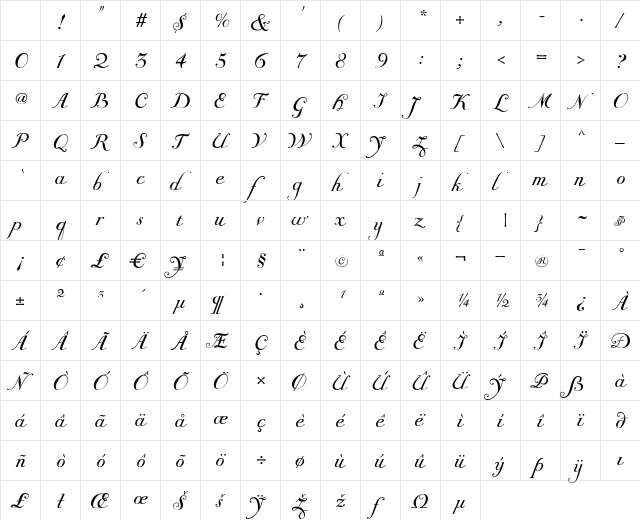
GiambattistaOne flows with the natural rhythm of handwritten lettering, making it ideal for designs that call for warmth and personal expression.
Font Pairing: Combine GiambattistaOne with a simple geometric sans for maximum contrast - the tension between flowing curves and clean structure is a classic typographic pairing.
Pro Tip: Use GiambattistaOne for short runs of text - names, titles, or taglines. Extended body copy in script faces tires the eye quickly.